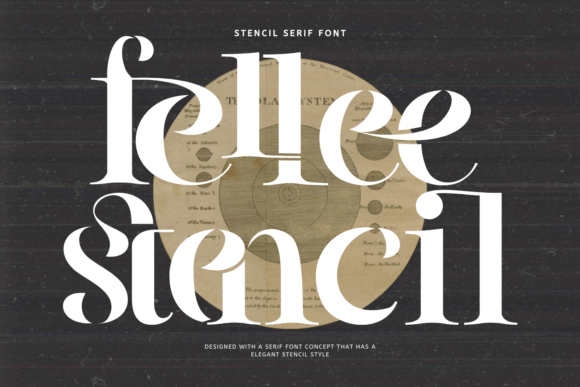
Introducing Fellee Stencil Font, a captivating serif font that combines elegance and a stencil style for a truly unique and eye-catching design. Created by 177Studio, this font is perfect for anyone looking to elevate their brand and make a lasting impression.
With its irregular dynamic shapes, Fellee Stencil Font exudes a sense of creativity and individuality. Each character is meticulously crafted to be both regular and unique, ensuring that your designs stand out from the crowd. Whether you're designing an elegant logo, a classy editorial layout, or a women's magazine, this font is sure to add a touch of sophistication.
For fashion brands and cosmetic companies, Fellee Stencil Font is a must-have. Its sleek and stylish design effortlessly captures the essence of modern fashion and beauty. Use it for fashion promotions, advertising designs, or even on your product packaging to create a sense of luxury and allure.
But it doesn't stop there. Fellee Stencil Font is also perfect for invitations, art quotes, and home decorations. Its versatile nature allows it to adapt to any occasion and add a touch of elegance to your designs. Whether you're designing book covers, creating special event materials, or simply adding a personal touch to your home, this font has got you covered.
What sets Fellee Stencil Font apart is its ability to evoke emotions. Its graceful curves and attention-grabbing style evoke a sense of beauty and sophistication. It's not just a font, it's a work of art that will captivate your audience and leave a lasting impression.